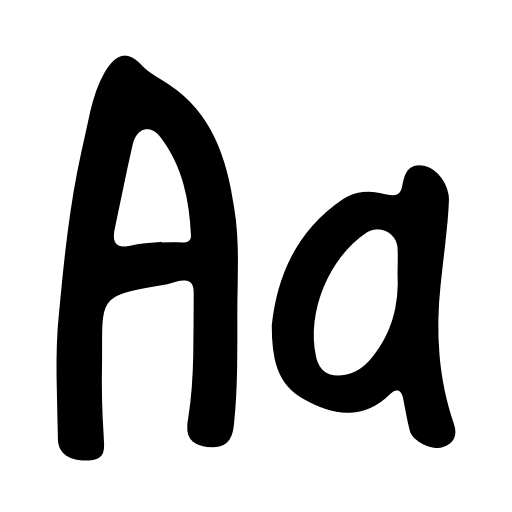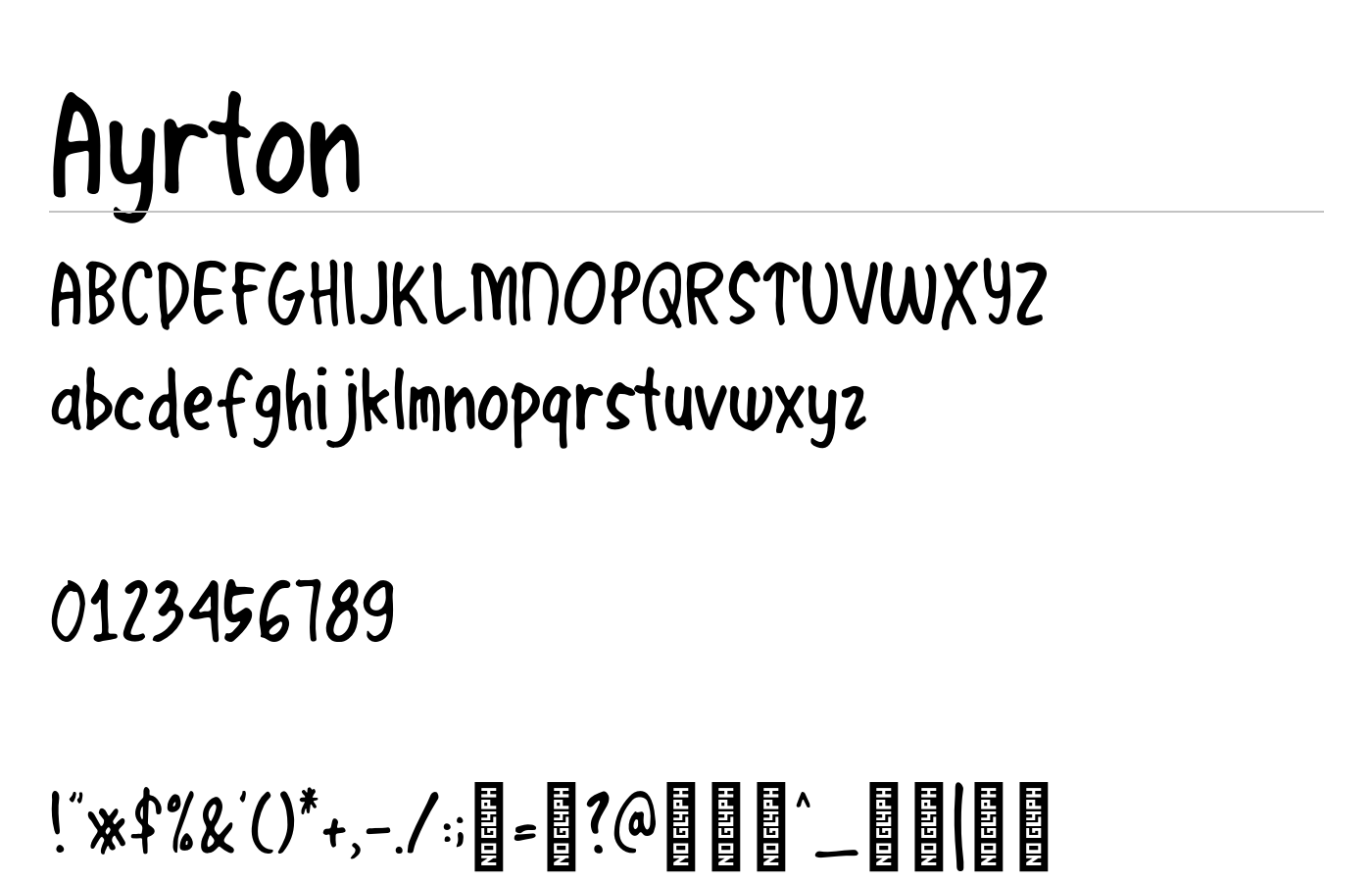
Ayrton is a playful and informal handwritten sans serif font with a casual, friendly feel. Its rounded, slightly uneven strokes and moderate x-height give it a warm and approachable personality, making it ideal for children’s books, creative projects, and casual branding. This font works well in headlines and short texts where a personal, human touch is desired.
Ayrton Font
About Ayrton Font
| Font family | Ayrton Font |
| Designer | Made Arini Hanindharputri |